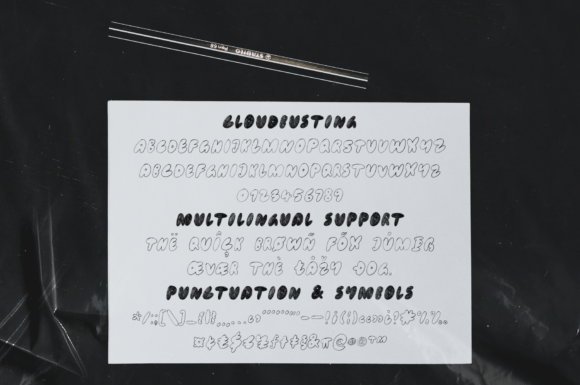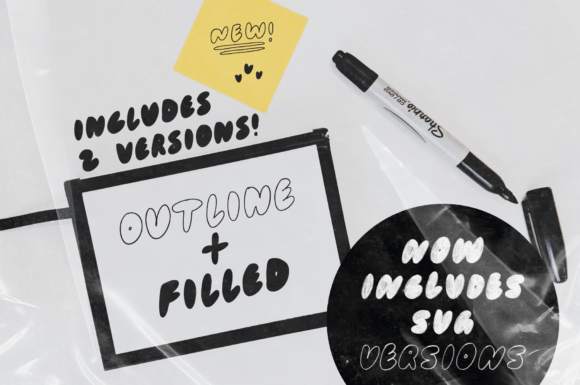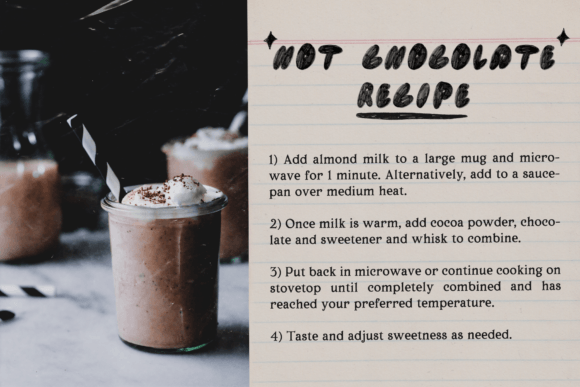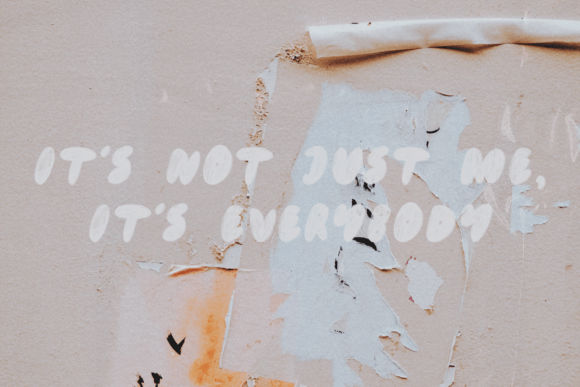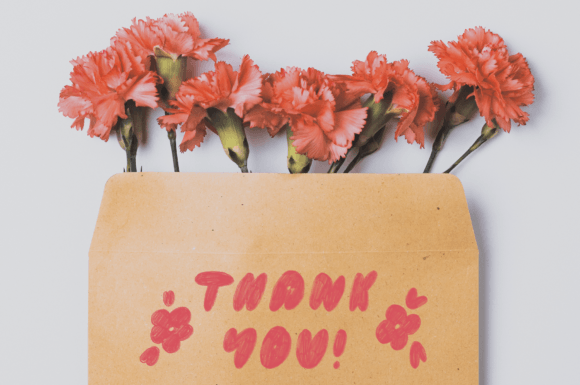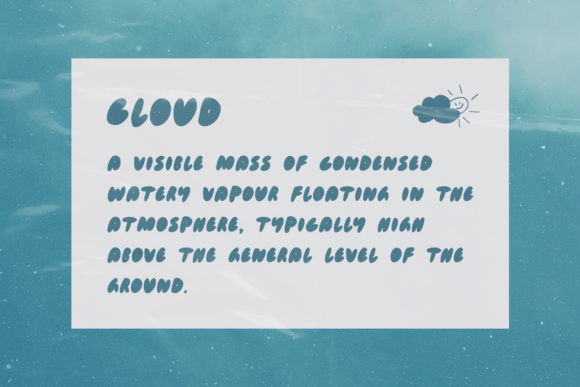
Introducing Cloudbusting Font: The Playful Sans Serif Font You Need
Are you tired of using the same old fonts in your designs? Do you want to add a touch of playfulness and whimsy to your projects? Look no further than Cloudbusting Font, a bold and bubbly sans serif font that’s perfect for designers and crafters alike.
What is Cloudbusting Font?
Cloudbusting Font is a unique and eye-catching font that features a bubble letters look, complete with lots of variations and an extra set of drawings. This playful font is designed to add a fun and carefree touch to any design, making it perfect for projects that need a bold and attention-grabbing font.
Characteristics of Cloudbusting Font
So, what makes Cloudbusting Font so special? Here are just a few of its key characteristics:
- Playful bubble letters look: Cloudbusting Font features a fun and playful bubble letters look that’s sure to add a touch of whimsy to any design.
- Lots of variations: With multiple variations to choose from, you can mix and match to create a unique look that’s all your own.
- Extra set of drawings: In addition to the font itself, Cloudbusting Font also comes with an extra set of drawings to help you add even more personality to your designs.
- Sans serif: Cloudbusting Font is a sans serif font, making it clean and easy to read.
- Bold and eye-catching: This font is designed to be bold and attention-grabbing, making it perfect for projects that need to stand out.
Uses for Cloudbusting Font
So, what can you use Cloudbusting Font for? The possibilities are endless! Here are just a few ideas to get you started:
- Logotypes: Cloudbusting Font is perfect for creating bold and eye-catching logotypes that will help your brand stand out.
- Quotes: Add a touch of whimsy to your quotes with Cloudbusting Font, making them perfect for social media posts, blog articles, and more.
- Social media posts: Use Cloudbusting Font to add a playful touch to your social media posts, making them more engaging and shareable.
- Website and magazine layouts: Cloudbusting Font is perfect for adding a bold and eye-catching touch to your website or magazine layouts.
- Poster designs: Create eye-catching poster designs with Cloudbusting Font, perfect for advertising, events, and more.
Why Choose Cloudbusting Font?
So, why should you choose Cloudbusting Font for your next project? Here are just a few reasons:
- Unique and eye-catching: Cloudbusting Font is a one-of-a-kind font that’s sure to grab attention and add a touch of personality to your designs.
- Versatile: With multiple variations and an extra set of drawings, Cloudbusting Font is versatile enough to use in a wide range of projects.
- High-quality: Cloudbusting Font is a high-quality font that’s designed to deliver exceptional results.
| Font Name | Cloudbusting Font |
| Author | anasfonts |
If you’re looking for a playful and bold font to add a touch of whimsy to your designs, look no further than Cloudbusting Font. With its unique bubble letters look, multiple variations, and extra set of drawings, this font is perfect for designers and crafters alike. So why wait? Download Cloudbusting Font today and start creating eye-catching designs that will grab attention and leave a lasting impression!